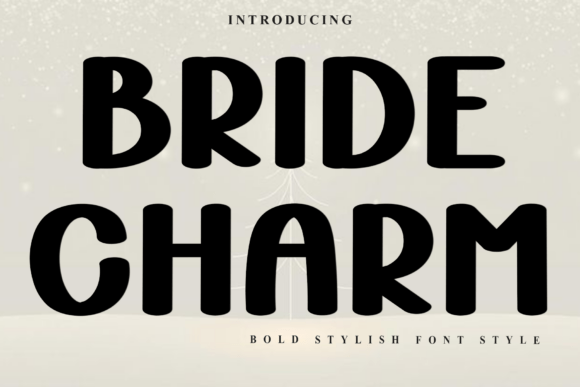
The Magic of Bride Charm Font: Elevate Your Holiday Designs
Ah, the holiday season is upon us, and as designers, crafters, and creative hobbyists, we’re on the lookout for that perfect font to add a dash of magic to our projects. I still remember the time I was working on a festive greeting card design, and I just couldn’t find the right font to capture the cheer and whimsy of the season. The client wanted something that would make their holiday cards stand out, and I was determined to deliver. That’s when I stumbled upon the enchanting Bride Charm Font, and it instantly became my go-to for all things holiday.
An Honest Review of Bride Charm Font
- ✨ Festive and merry vibe that’s perfect for the holiday season
- ✅ Decorative elements and whimsical flair that add a touch of enchantment
- 🎉 PUA encoded for easy access to amazing glyphs and ligatures
- 💫 Works beautifully for greeting cards, gift tags, and holiday-themed projects
While Bride Charm Font is a delightful addition to any design project, there are a few things to keep in mind:
- ⚠️ Some users might find the font a tad too ornate for certain projects
- 🤔 Limited use outside of holiday-themed designs, as it may not fit other contexts
A Practical Guide to Using Bride Charm Font
The Story Behind Bride Charm Font
Bride Charm Font was designed with the holiday season in mind. The creator aimed to capture the magic and wonder of this special time of year, infusing the font with a sense of nostalgia and cheer. Whether you’re a designer, crafter, or hobbyist, Bride Charm Font is sure to bring a smile to your face and a touch of enchantment to your projects.